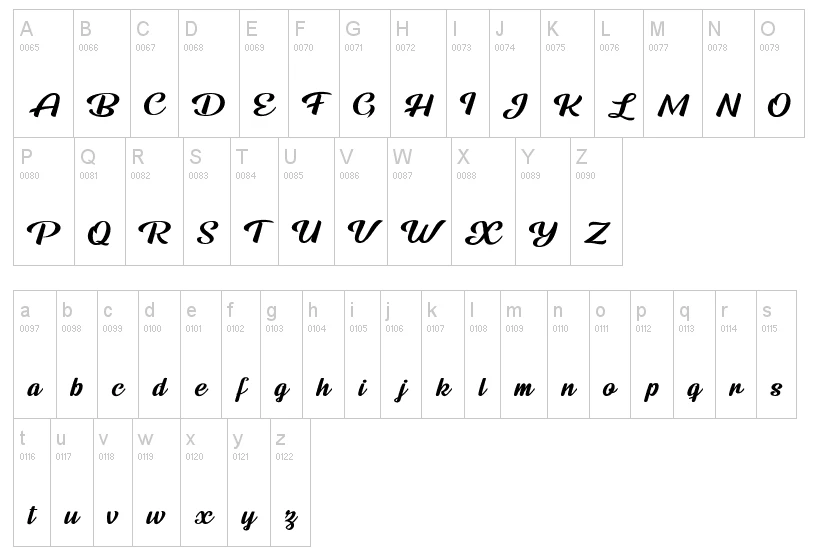
One of the favored handwriting fonts is lemon jelly. This font is additionally almost like the other script type fonts. You can download this font absolutely free fo charge (Personal use only). Thickness is far enough to navigate. With no condition, you’ll use this font for private usages.
Billy Argel designed this true sort of regular font. The font is available from 2018. Appearance is probably going handwriting but usage isn’t limited. The author structured Lemon Jelly font to more make eye-catching your design. This font gives your document and styles an additional approaching power.
Lemon Jelly is not only for paper items but also in fabric, visual platforms you can use. Fabric design likes, T-shirt, Cap, Badge, etc are suitable where lemon jelly fonts to use. For any greetings card, invitation cards, postcard this font is most used.
| Name | Lemon Jelly |
| Style | Handwriting |
| Author | Billy Argel |
What type of font is Lemon Jelly?
Ans: Lemon Jelly is a Cursive typeface font with semi-bold weights true type regular font.
Is there any font similar to Lemon Jelly in Google Fonts?
Ans: The closest similar alternative in Google fonts to Lemon Jelly is Yesteryear, Pacifico, Rouge Script font.